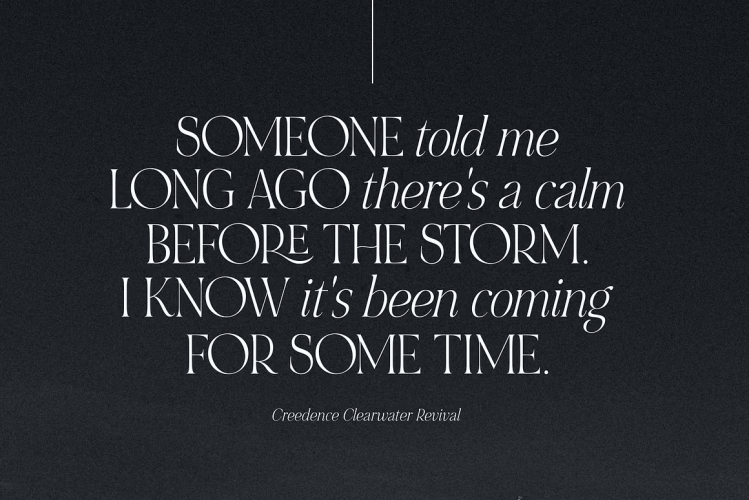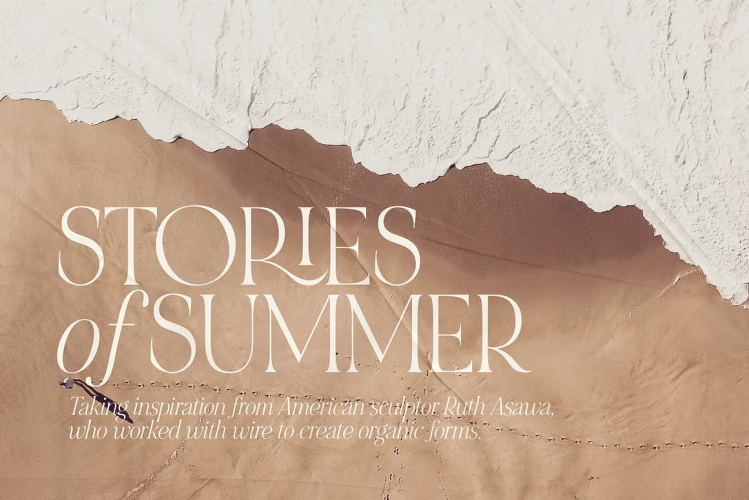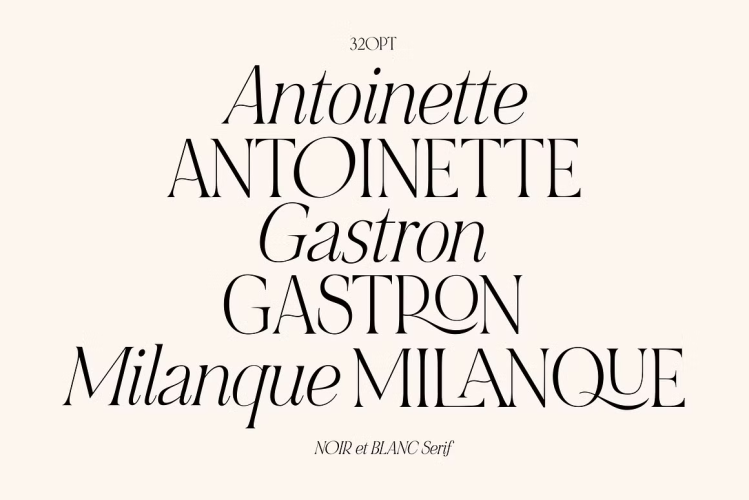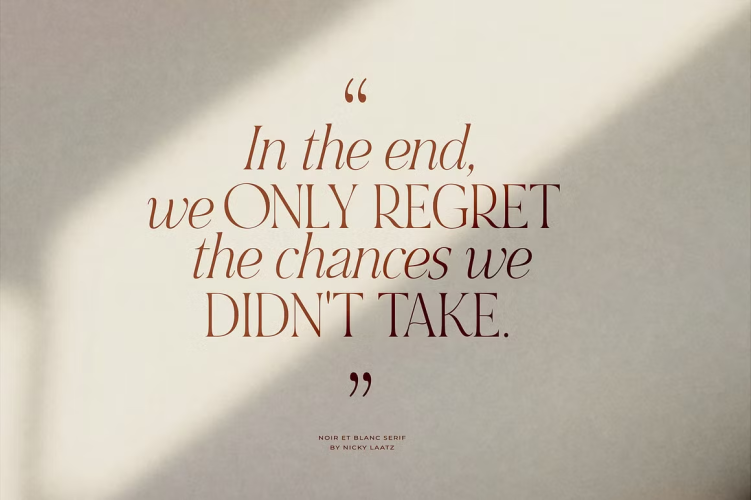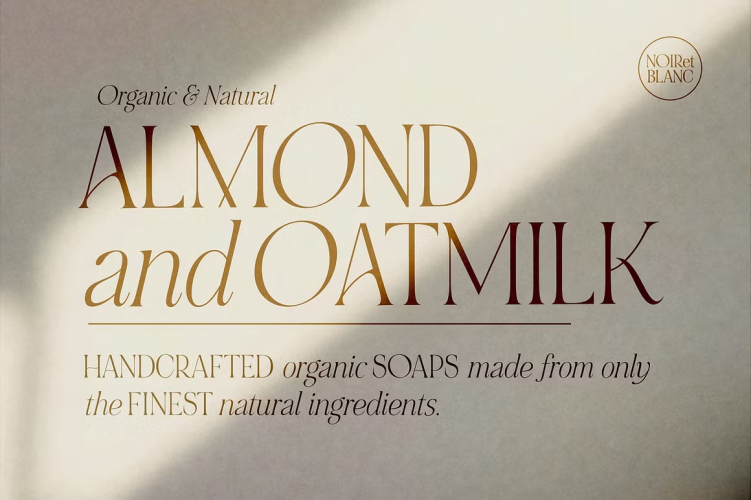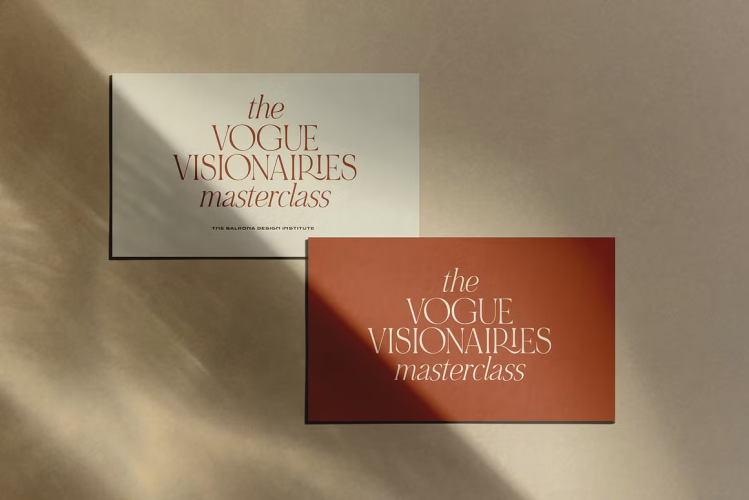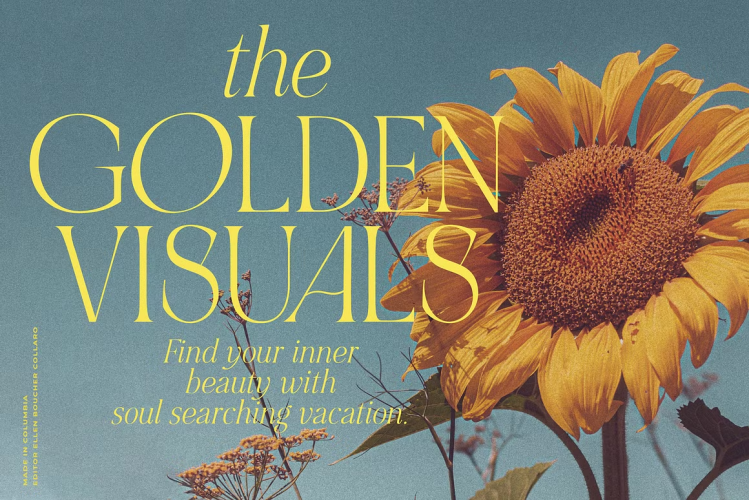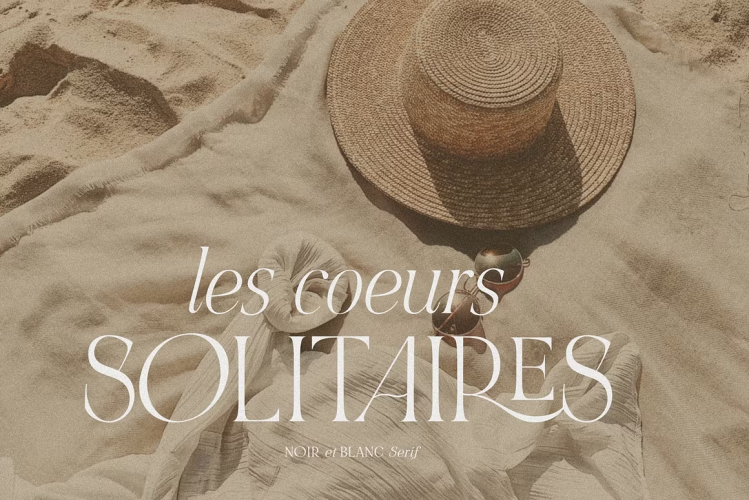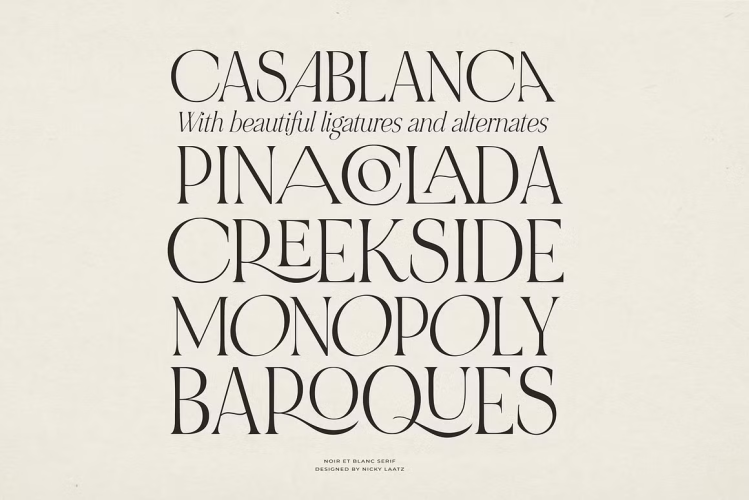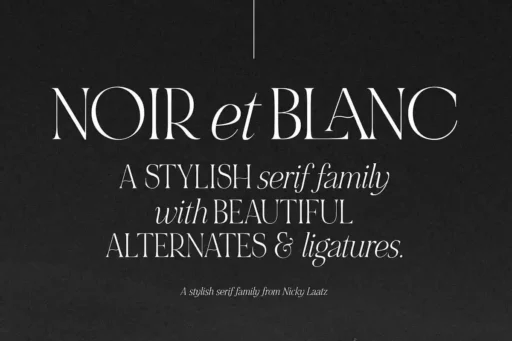
NOIR et BLANC Font
NOIR et BLANC is a Stylish Serif font family with beautiful ligatures and alternates. The regular serif’s bold and voluptuous uppercase would oppose well the lowercase o…
NOIR et BLANC is a Stylish Serif font family with beautiful ligatures and alternates. The regular serif’s bold and voluptuous uppercase would oppose well the lowercase of its Italic counterpart, appearing sleek and sultry.
Sprinkle interest by adding some lovely ligatures and alternates to make your typography one of a kind. It has three slightly different weights to cater to the correct font appearance of all sizes and light and dark backgrounds.
Where NOIR et BLANC Font works best
NOIR et BLANC Font gives long-form text a classic, trustworthy rhythm — ideal for magazine spreads, annual reports and book interiors.
Pair NOIR et BLANC Font with generous letter-spacing for wordmarks in fashion, hospitality, wine and jewellery branding.
Use NOIR et BLANC Font for slide titles in Keynote, PowerPoint or Google Slides to add authority without looking dated.
What is NOIR et BLANC Font good for?
NOIR et BLANC Font is a Serif Fonts typeface tagged Bold, Serif, Serif Fonts, Typeface. It works well for headlines, logos, posters, social media graphics and branding projects that need a distinctive serif fonts look.